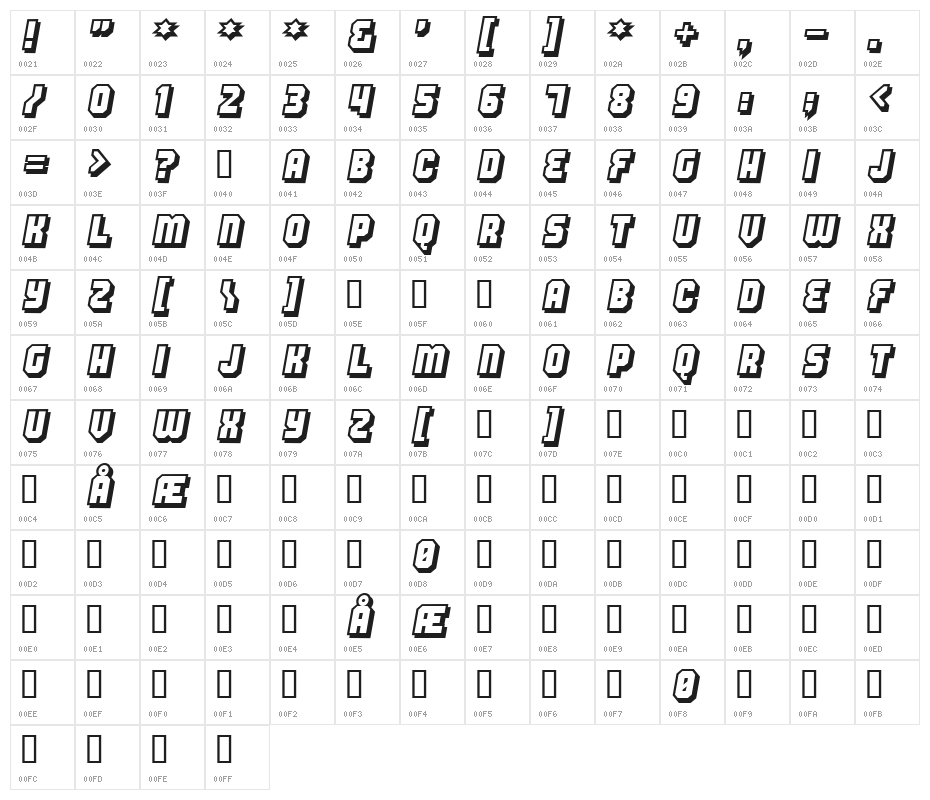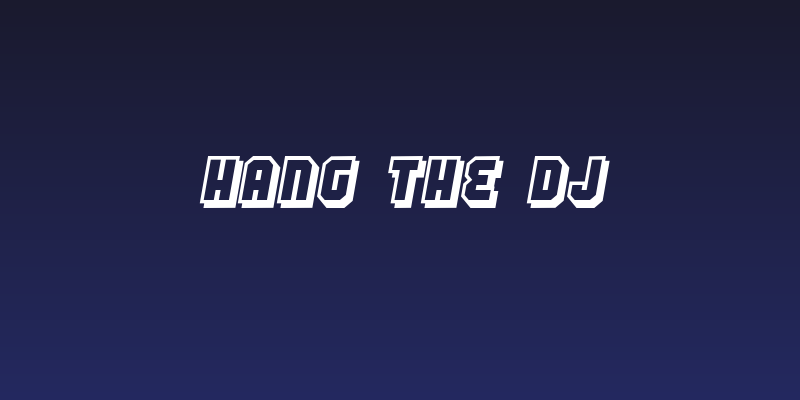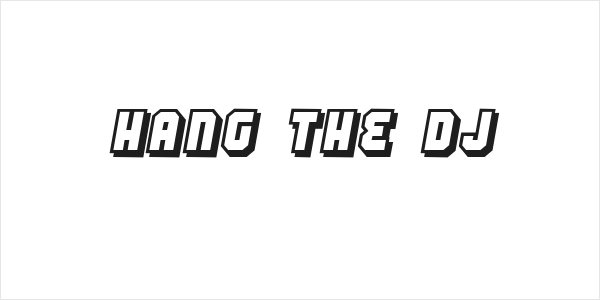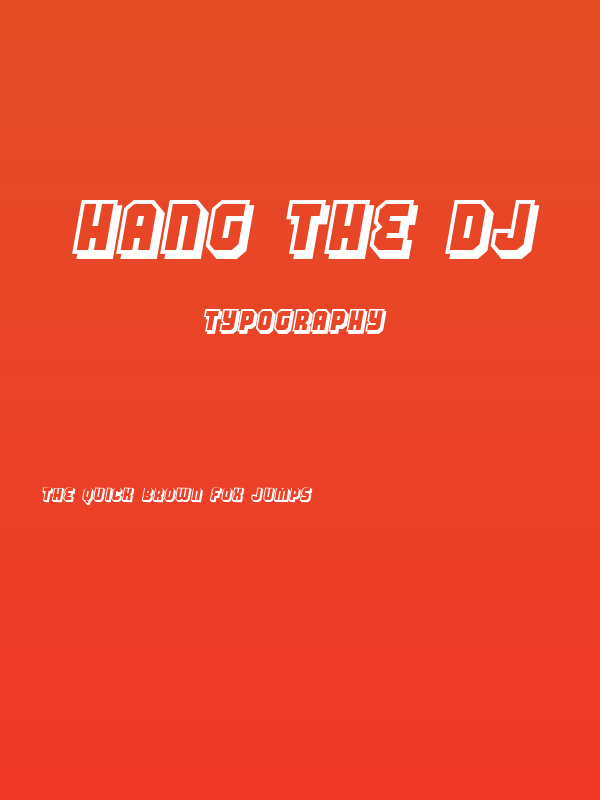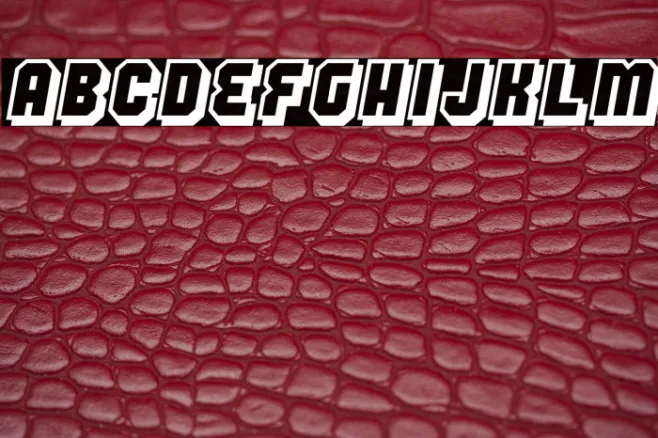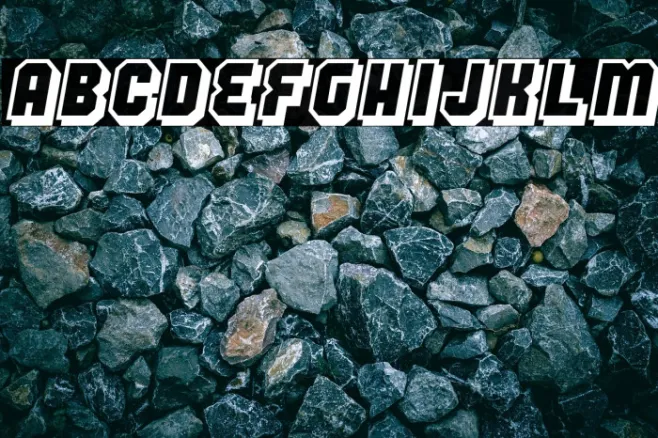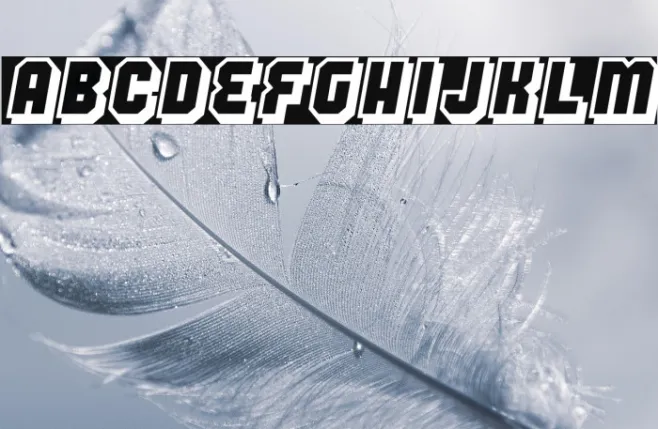
Hang the DJ Font
Hang the DJ Description
This font features a bold, three-dimensional style with a strong shadow effect that gives each character a sense of depth and dynamism. The uppercase and lowercase letters are designed with a blocky, geometric structure, emphasizing sharp angles and straight lines. The numbers and special characters follow the same bold aesthetic, ensuring consistency across all glyphs. The font's design is reminiscent of retro or vintage styles, often seen in classic arcade games or comic book titles. Its distinct appearance makes it highly suitable for attention-grabbing headlines or logos.
HANG-THE-DJ1 UPPERCASE
HANG-THE-DJ1 LOWERCASE
HANG-THE-DJ1 OTHER CHARS
| Overall Style | Retro, Decorative |
| Proposed Projects | Ideal for retro-themed designs, video game titles, comic book covers, and eye-catching posters. |